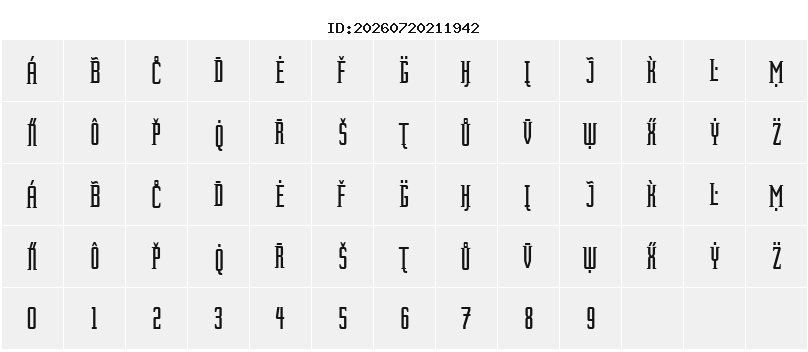
• Font Name: ForeignSheetMetal
• Designer: RudynFluffy
• Manufacturer: RudynFluffy Entertainment
• Description: ForeignSheetMetal has lots of accents like a foreign font. But what's foreign to you is not foriegn to me.
ForeignSheetMetal.ttf is a modern, elegant sans-serif font designed for ultimate readability and visual harmony. Perfect for branding, headlines, web design, and print materials.